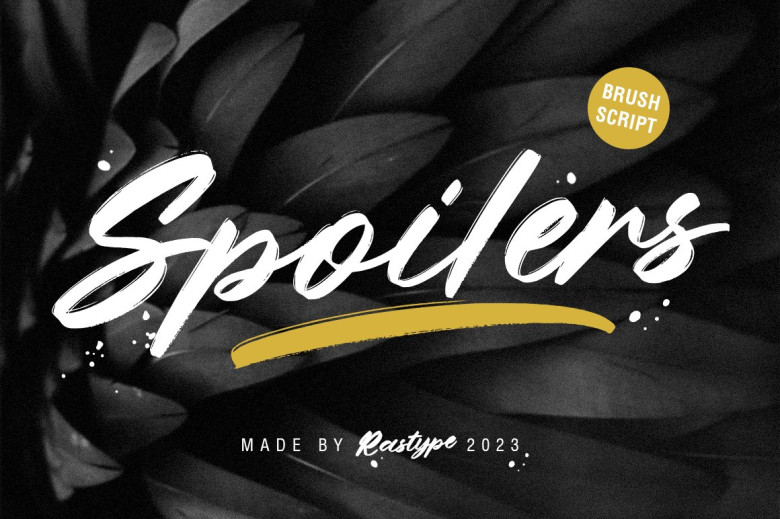
Spoilers Font
Spoilers is a textured brush font, beside a ligature and wallpaper underline all by hand that makes your designs unique it is also personality incomplete. Perfect for print work, including: Care labels in these characters without being yourself Quotes to cite on greeting cards Bookscape fonts – heaven! Ku: logos Packaging Titus or any design designed to draw people.
Spoilers Brush Script Font